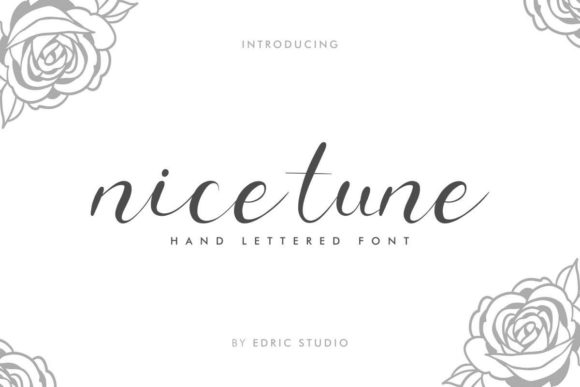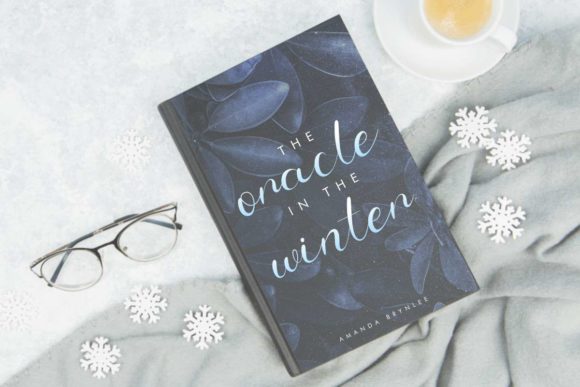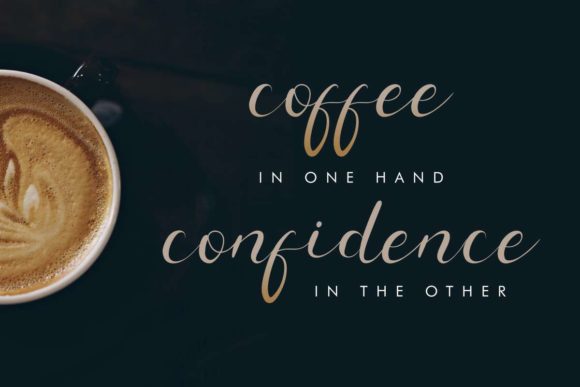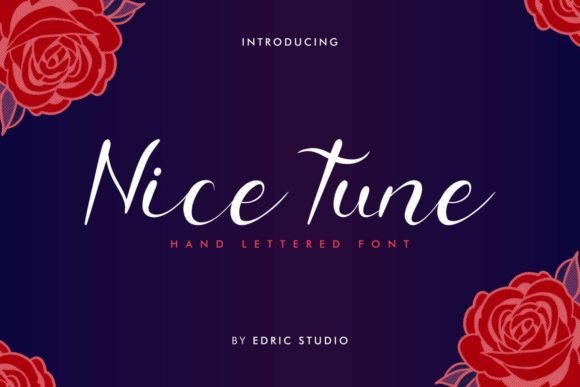
Introduction to Nice Tune Font
Nice Tune is a delicate, elegant and flowing handwritten font.
It has beautiful and well balanced characters and as a result, it matches a wide pool of designs Add it to your most creative ideas and notice how it makes them come alive.
Key Features of Nice Tune Font
Why Choose Nice Tune Font?
Nice Tune Font offers exceptional quality and versatility, making it a valuable addition to your design toolkit. Whether you’re creating for personal projects or commercial use, Nice Tune Font delivers professional results.